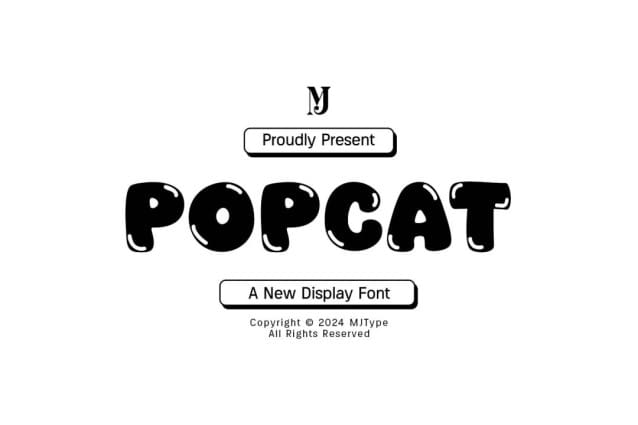
Popcat Display Font
Popcat Display Font is a chunky, comic, and cartoon display font. With its neat and joyful personality, this font will enhance any project you wish to create!